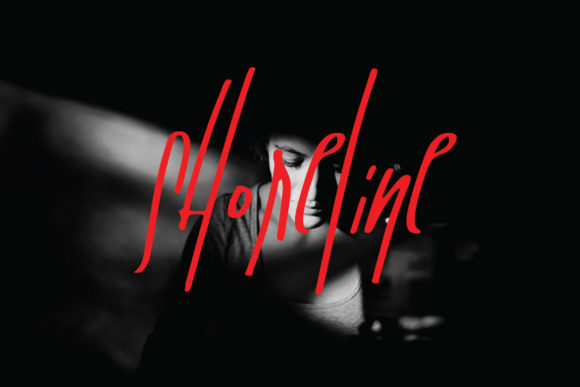
Fashion, allure, and beauty converge in the Shoreline Font, a script masterpiece that captures the essence of sophistication and style. With its sweeping curves, elegant lines, and captivating charm, Shoreline Font is the perfect choice for fashion-forward designers, bloggers, and businesses looking to make a statement.
Immerse yourself in the seaside allure of Shoreline Font, a script font that evokes the captivating beauty of crashing waves and sandy shores. Its carefully crafted characters dance across the screen, reminiscent of the ebb and flow of the tide, leaving a trail of elegance in their wake. Whether you're designing a fashion website, crafting a captivating logo, or creating mesmerizing social media posts, Shoreline Font is your ticket to leaving an unforgettable impression.
Unleash your creativity with Shoreline Font, a versatile script font that seamlessly adapts to a wide range of projects. Its inherent charm effortlessly elevates everything it touches, whether it's a fashion magazine, an invitation, or a product label. Embrace the limitless possibilities and watch as your designs transform into works of art.